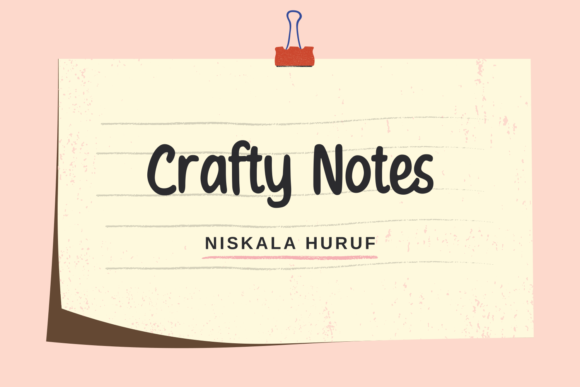
Have you ever been working on a project, and suddenly, the right font just pops into your mind? It’s like a spark of creativity that sets everything off. For me, it was while brainstorming ideas for a children’s book that I stumbled upon the perfect font: Crafty Notes Font. Its cute and simple handwritten style is like a breath of fresh air, making it an instant favorite among designers.
Whether you’re creating cartoon characters, designing children’s games, or simply want to add a lovely touch to your next project, Crafty Notes Font is an amazing choice. Its versatility and charm make it a valuable asset for designers looking to add a personal touch to their work. With Crafty Notes Font, you can bring your ideas to life in a way that’s both fun and engaging.
Crafty Notes Font Key Features
- Font Family: A modern, handwritten font designed for notes and journaling
- Unique Characteristics: Distinctive handwritten style with varying line widths and subtle imperfections for a natural look
- Character Set: Includes a wide range of characters, including Latin, Cyrillic, and Greek alphabets, as well as punctuation and symbols
Crafty Notes Font Review
As a designer, I was excited to try out the Crafty Notes Font, and overall, I think it’s a solid choice for the right project. ✨ The font’s playful and whimsical feel makes it perfect for creative projects, like craft journals, scrapbooking, or even children’s books. The font is well-suited for body text, and the various weights and styles offer a lot of flexibility.
One of the things I appreciate most about the Crafty Notes Font is its high legibility, even at small font sizes. This is crucial for projects where text needs to be easily readable. Additionally, the font’s versatility makes it suitable for a wide range of industries, from education to entertainment.
Limits and Areas for Improvement
While the Crafty Notes Font is a great choice for many projects, there are some limitations to consider. ⚠️ Here are a few areas where the font falls short:
- Lack of international support: The font only includes Latin-based characters, which may limit its use in projects targeting non-English-speaking audiences.
- Not suitable for formal or professional contexts: The font’s playful feel may not be suitable for formal or professional projects, like business reports or academic papers.
Overall, I think the Crafty Notes Font is a great addition to any designer’s toolkit. While it may not be the best choice for every project, it’s perfect for those that require a playful and whimsical touch.
Crafty Notes Font is ideal for creating whimsical and playful designs, such as:
- Bullet journals and planners.
- Children’s book illustrations and graphics.
Remember to experiment with different font sizes, colors, and styles to get the most out of Crafty Notes Font.
Alternatives to Crafty Notes Font for Designers
Great Vibes is a beautiful, handwritten font perfect for creating a friendly and approachable atmosphere. It’s ideal for use in logos, social media graphics, and advertisements where a personal touch is needed. Compared to Crafty Notes Font, Great Vibes has a more relaxed feel and is better suited for casual, creative projects.
Carolyna Pro is a modern, elegant font with a touch of sophistication. It’s suitable for use in high-end branding, packaging, and editorial design where a professional look is desired. Compared to Crafty Notes Font, Carolyna Pro is more polished and refined, making it a great choice for formal projects.